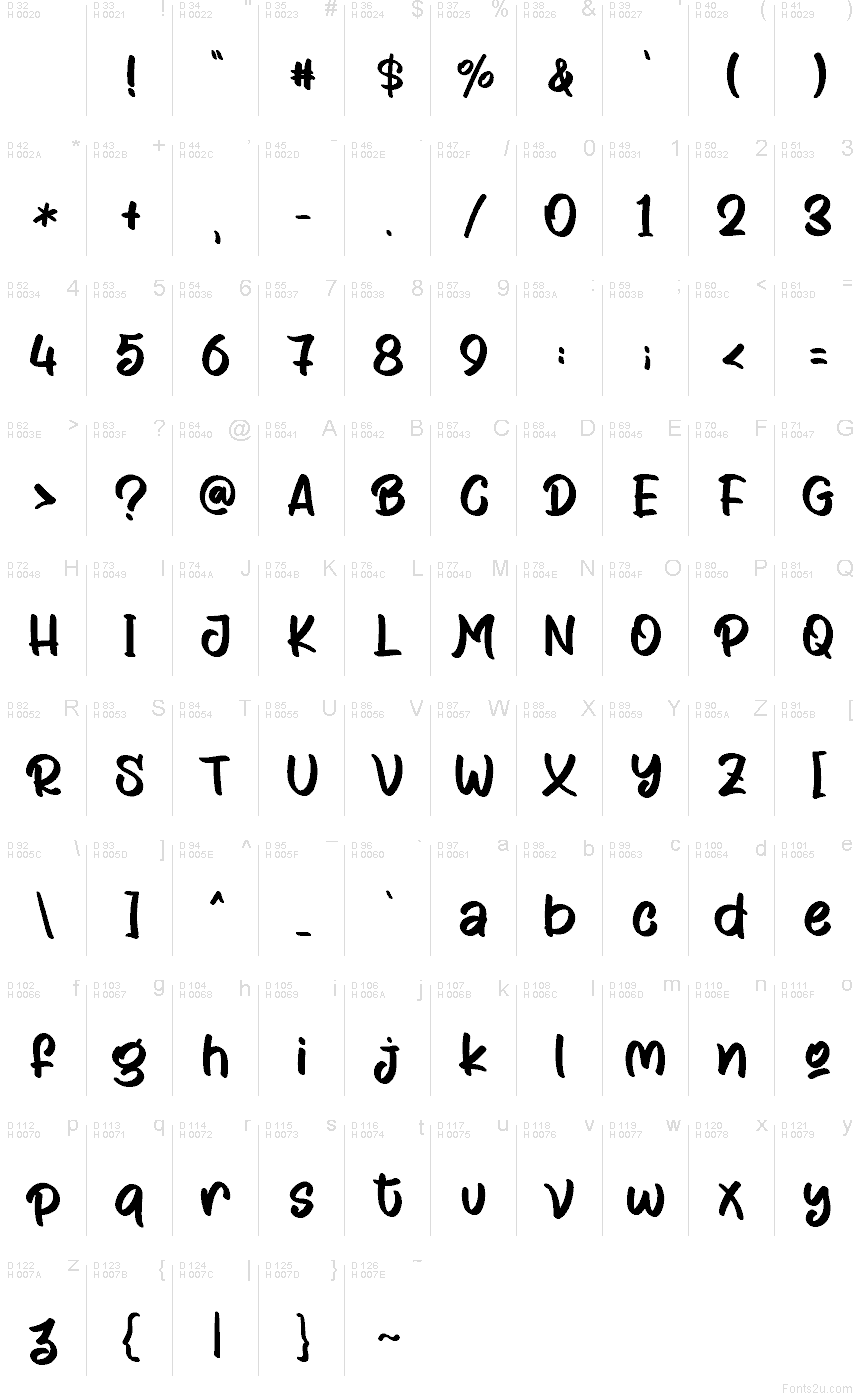
Mango Lazy by Letterafa is a free brush font shaped by a loose, sleepy rhythm of rounded strokes and soft drooping curves. The lettering feels casually dragged into place, with swollen ends and uneven turns that keep the texture relaxed rather than slick or calligraphic.
That easygoing movement makes sense on cafe menus, product labels, packaging, social posts, and cheerful quote graphics where a tidy script would feel too formal. Short headlines also benefit from its slightly slumped silhouette, especially in branding that wants a handmade note without switching to rough marker lettering.